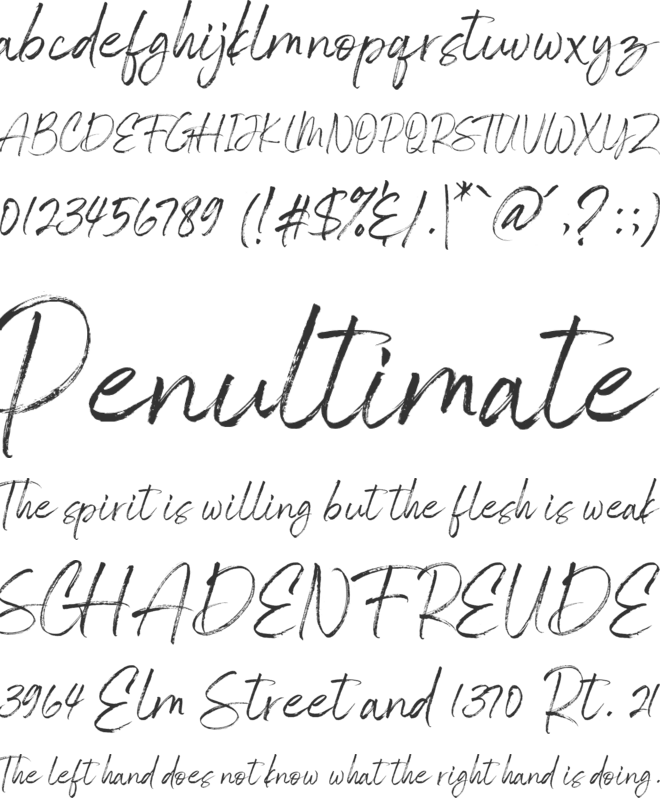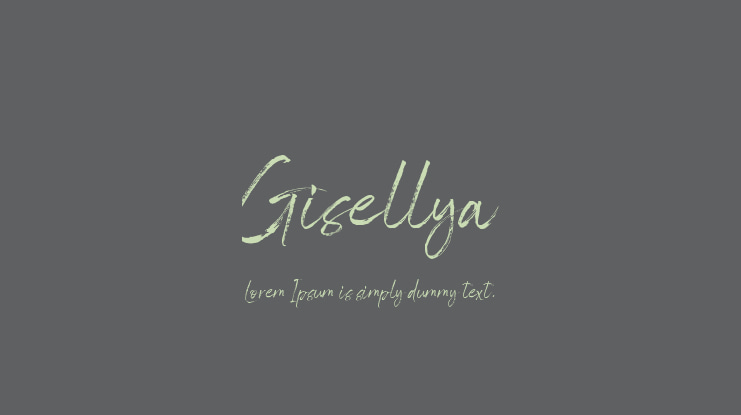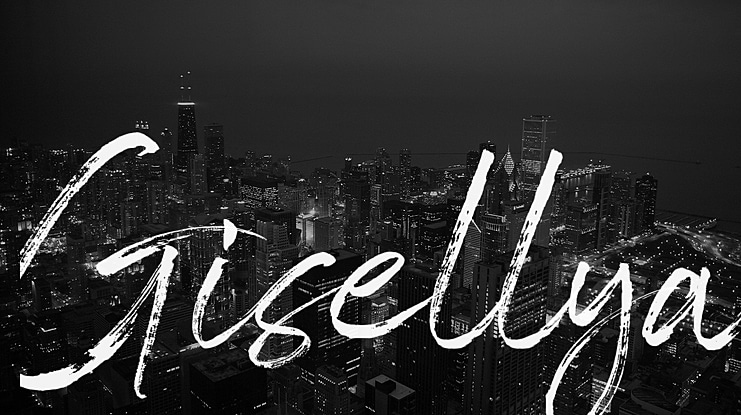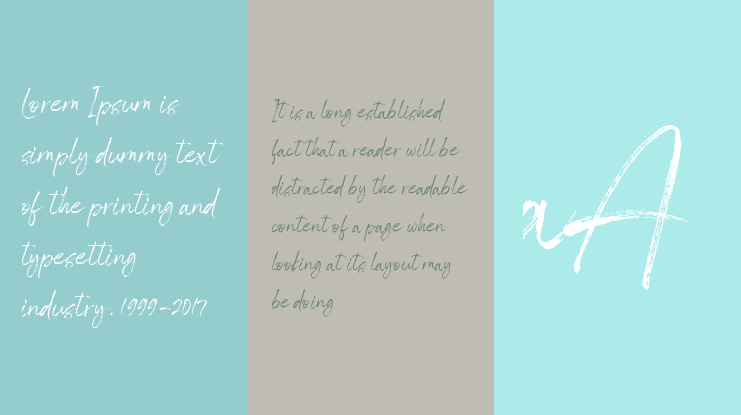
Gisellya Font
Gisellya Handwritten Font. Made from natural pen.
it will make your design project more beautiful.
The font is suitable for any design like branding, logo, tagline, fashion,
print template, quotes, wedding and etc.